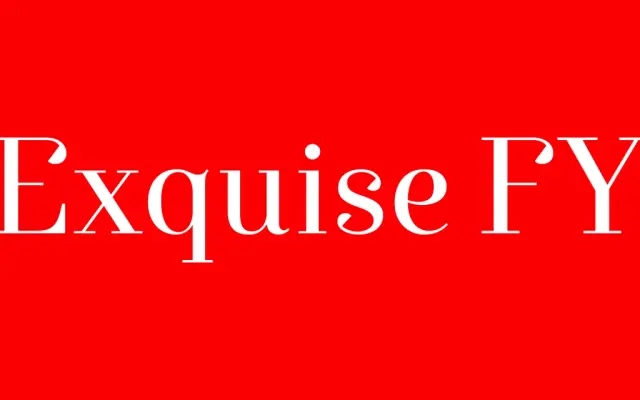
Exquise FY
Black Foundry · Alisa Nowak, Valentine Proust, Bertrand Reguron, Gia Tran, Elvire Volk
A high-contrast Didone serif with refined details, available in four weights with italics and a variable font for editorial and luxury branding use.
Built on the Didone model, the family carries the sharp contrast and hairline serifs associated with that tradition while the designers have worked distinct details into individual letterforms. Four weights from Regular to Black each have matching italics, and the package includes variable fonts covering the full weight range. OpenType features are extensive, running to swashes, stylistic sets, titling capitals, old-style figures and multiple fraction styles, giving it range beyond purely decorative use.
High contrast between thick and thin strokes with vertical stress and fine hairline serifs place this firmly in the Didone tradition, designed for editorial and luxury branding contexts.